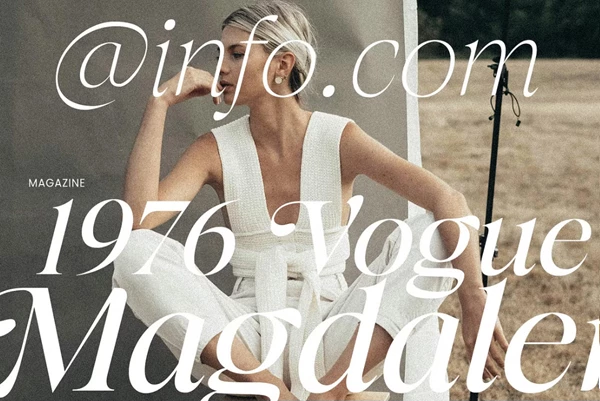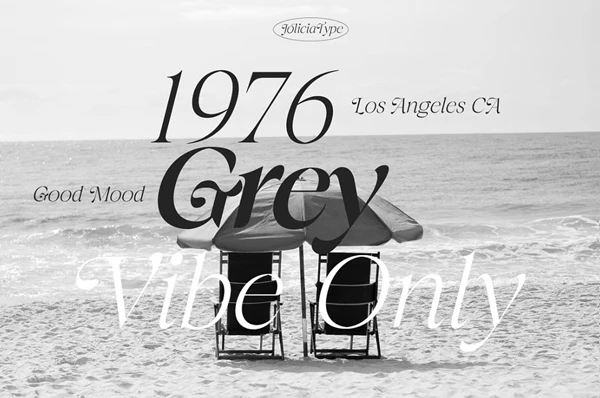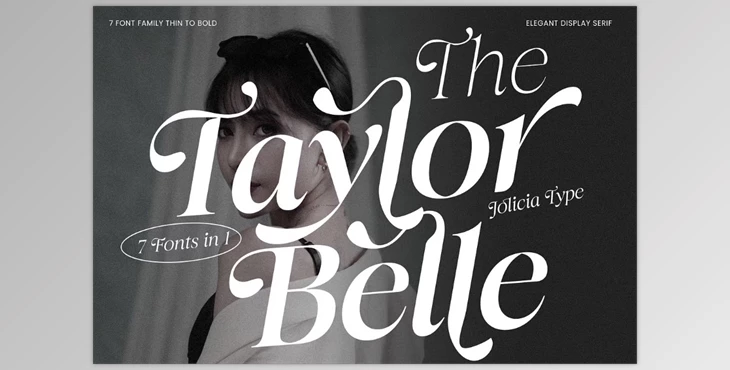
The Taylor Belle Elegant Feminine Font:
Taylor Belle is a feminine, display, serif font with all the bells and whistles. Literally, with soft curves and decorative details, the uppercase letters have swashes and flourish strokes that make this typeface both eye-catching and delicately legible. The family boasts seven weights from Thin to Bold so designers can have easy access to lighter or bolder concepts. In addition, 17 OpenType alternates and eight ligatures render a creative typographic endeavor a possibility with a distinctly personal touch. The true italic is just as beautiful, making Taylor Belle the font of choice for anything romantic and fashionable—invitations, branding, logos, and magazine spreads. Thus, any application from fashion to cosmetics and weddings to branding in the loftiest of settings will apply; this is the go-to typeface for anything luxe, feminine, and contemporary.
Taylor Belle supports 90+ languages. It's a very global font. Among the supported languages are: Afrikaans, Albanian, Basque, Bucharest, Catalan, Czech, Danish, Dutch, English, Estonian, Finnish, French, German, Hungarian, Icelandic, Italian, Latin, Lithuanian, Maltese, and Norwegian. Nepali, Occitan, Polish, Portuguese, Romanian, Spanish, Swedish, Turkish, and many more. Therefore, any international purpose will be achieved.